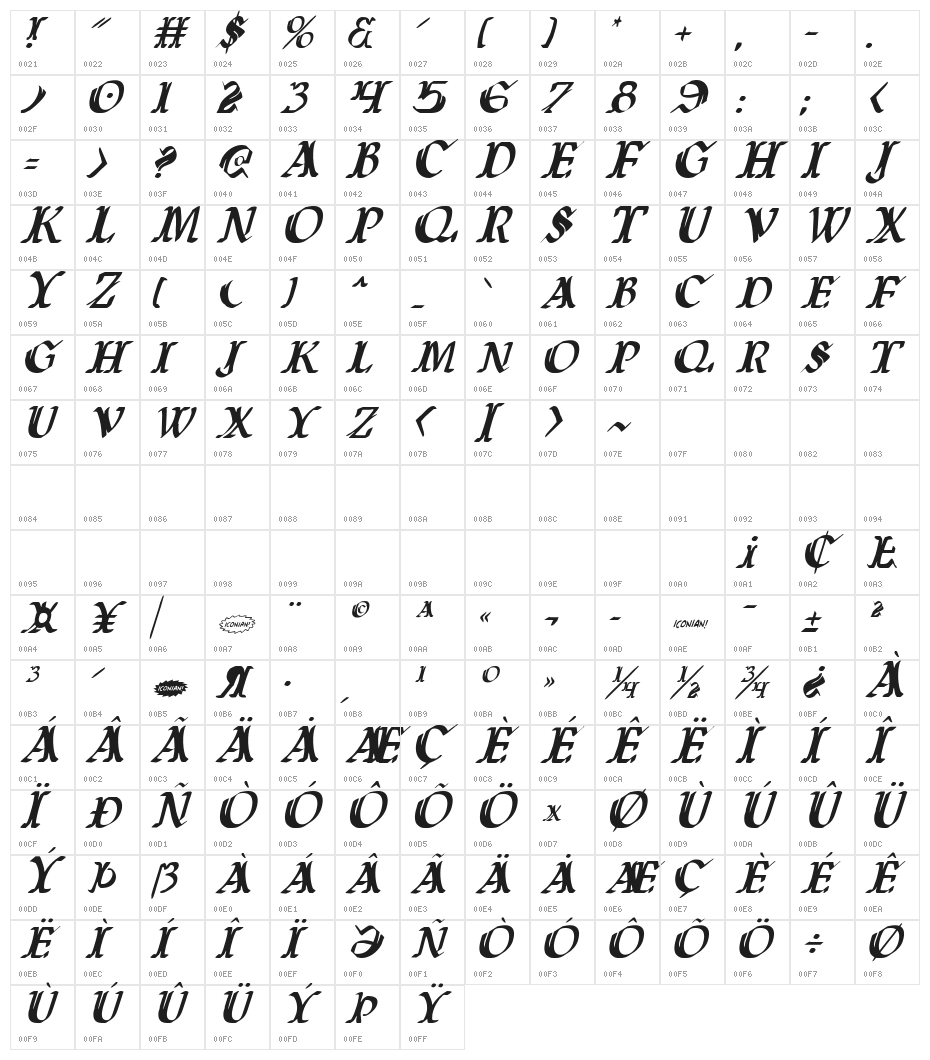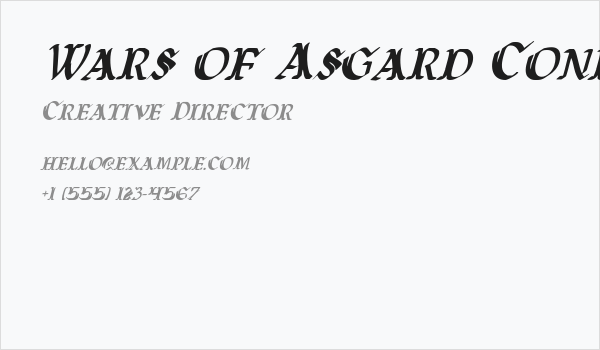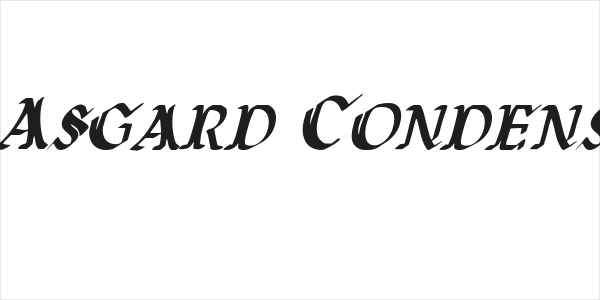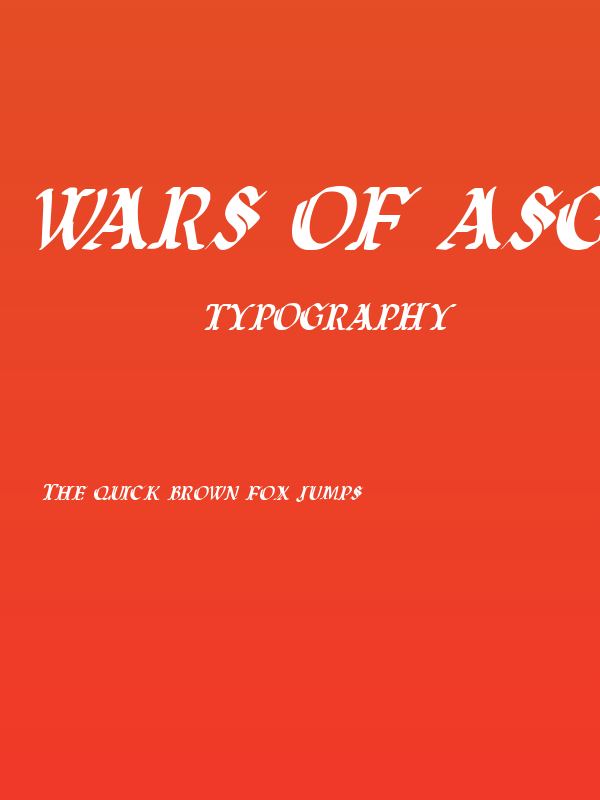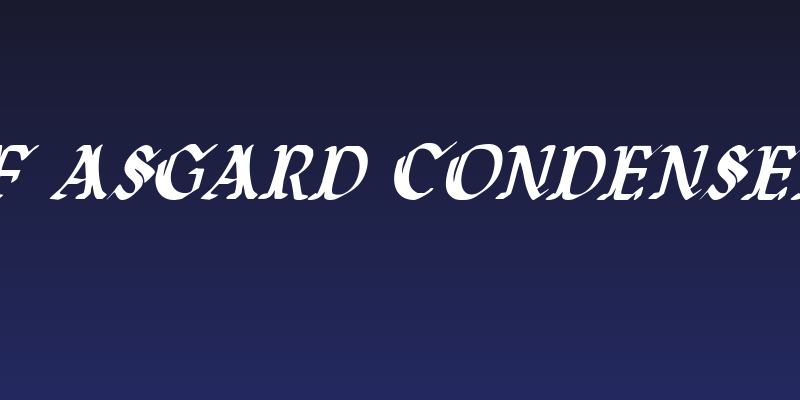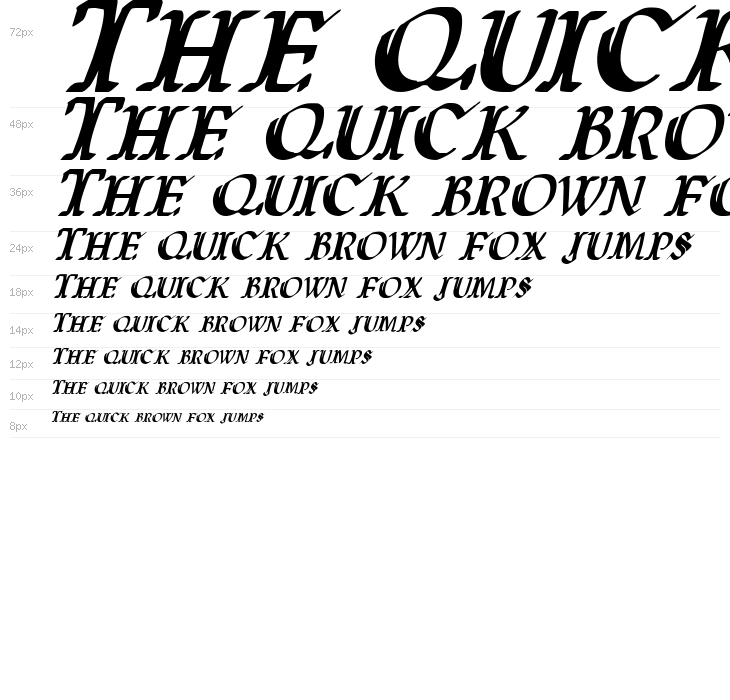
Wars of Asgard Condensed Italic Font
Wars of Asgard Condensed Italic Description
This font features a bold and dynamic style with a strong italic slant, giving it a sense of movement and energy. The characters are condensed, which adds to the compact and impactful appearance. The strokes are thick and consistent, providing a high contrast that enhances readability while maintaining a decorative flair. The uppercase and lowercase letters are designed with sharp, angular serifs and a slightly aggressive edge, making them stand out. The numerals and special characters follow the same stylistic cues, ensuring uniformity across all glyphs. This font is ideal for projects that require a bold statement and a touch of elegance.
| Proposed Projects | Ideal for headlines, posters, logos, and branding materials that require a strong visual impact. |